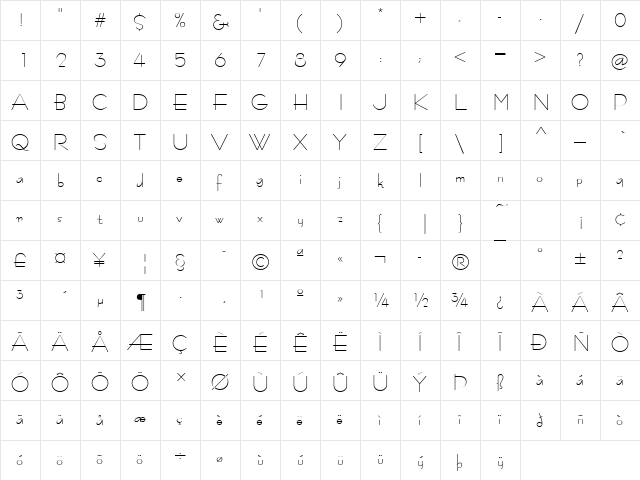
Konkord-Retro Regular
Design Context for Konkord-Retro Typeface
Konkord-Retro wears its vintage influences proudly, with letterforms that recall mid-century signage, classic packaging, and nostalgia-driven design.
Font Pairing: Combine Konkord-Retro with a simple slab or neutral sans — period-accurate companions reinforce the vintage feel without competing for attention.
Pro Tip: Lean into Konkord-Retro's period character by pairing it with aged paper textures, muted colour palettes, and vintage illustration styles.